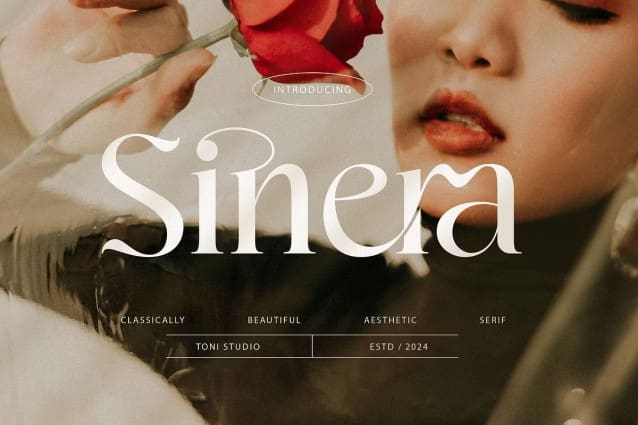
Sinera Font
Sinera Font is a classy font that emphasizes elegance and simplicity. Designed with smooth, minimalist connecting lines, this font is ideal for use in titles, descriptions, logos, branding, magazines, product packaging, and invitations. Every curve and connection is created with stylish, providing a clean and elegant feel. Clean lines and soft curves provide a luxurious feel that will enhance the aesthetic of any project, making it the perfect choice for any design need